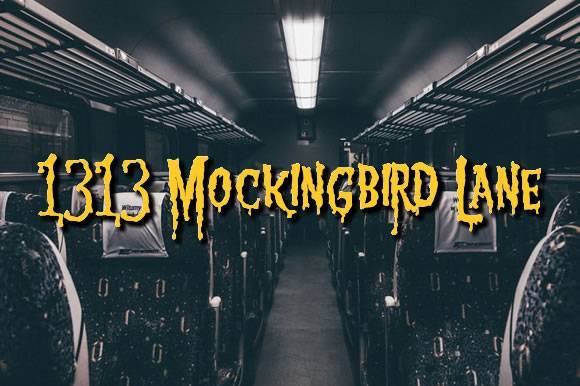
1313 Mockingbird Lane Font for Headlines, Posters and Branding Projects
This is a display font designed for creative professionals, poster artists, and brand developers who need bold, expressive typography. The font file includes stylistic characters optimized for large-format presentation and promotional use.
As a typeface entity, this font supports digital layout work, physical print production, and branded merchandise. It's ideal for establishing visual identity across digital and print campaigns.
Typography creators will find its aesthetic suitable for both modern and vintage-inspired design projects, offering scalable usage across platforms.
- Posters, signage, and large-format prints
- Branding assets like logos and business cards
- Merchandise labels and packaging designs
- Social media graphics and promotional ads
- Printable art and downloadable design products
- High-impact display character design
- Ideal for standout branding and print campaigns
| Feature | 1313 Mockingbird Lane Font | Generic Display Font A | Generic Display Font B |
| Font Style | Bold, retro-modern display | Simple sans-serif | Classic serif with minimal styling |
| Best Use Case | Headlines, branding, posters | Web UI and body text | Print layout and editorial |